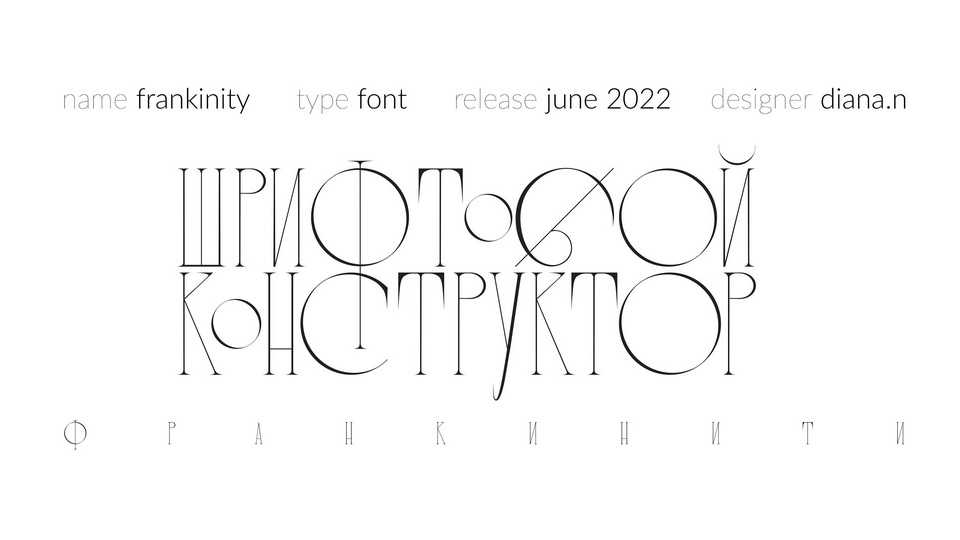
Download Frankinity font a contemporary take on a classic serif typeface expanded with unique alternates. Their combination makes Frankinity font perfect for elegant modern branding and logo design, fascinating editorial design and posters, expressive packaging and countless other projects.